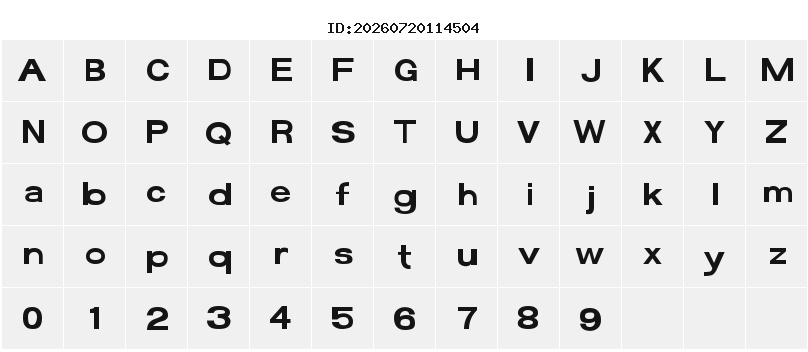
FunZone 3 Pro Preview
• Font Name: FunZone 3 Pro
• Full Font Name: FunZone 3 Pro Regular
About FunZone 3 Pro.ttf
FunZone 3 Pro.ttf is a modern, elegant sans-serif font designed for ultimate readability and visual harmony. Perfect for branding, headlines, web design, and print materials.